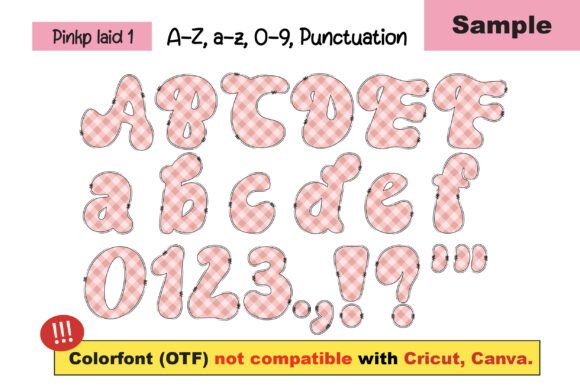
Coquette Doodle Font
Indulge in the charm of the “Coquette Doodle Font,” a delightful representation of the coquette aesthetic that exudes playfulness, flirtation, and a hint of mystery. This font bundle is a treasure trove, featuring four distinct styles that capture the essence of this aesthetic. To enhance your creative journey, the bundle comes with a special PNG bonus, perfectly matching the font’s playful demeanor. Ideal for custom DIY craft projects, personalized names, sublimations, posters, and a plethora of other creative works.